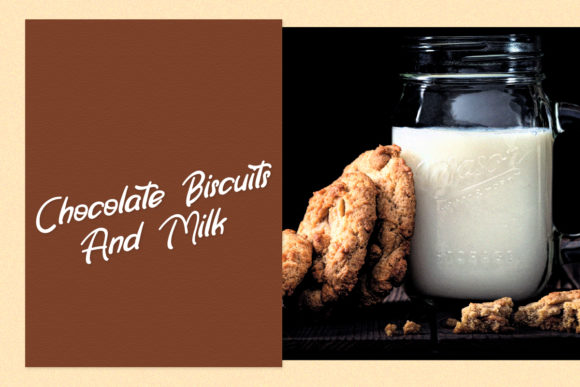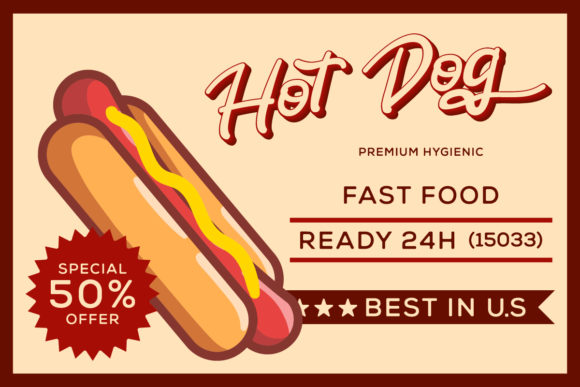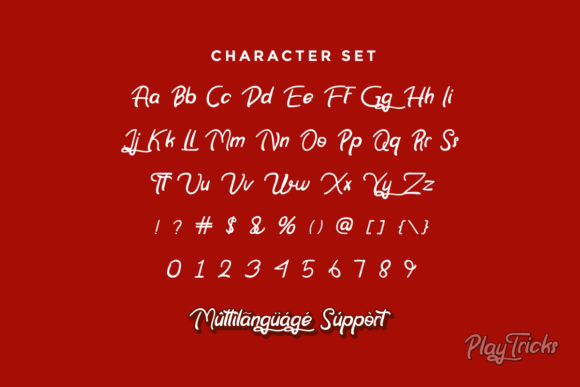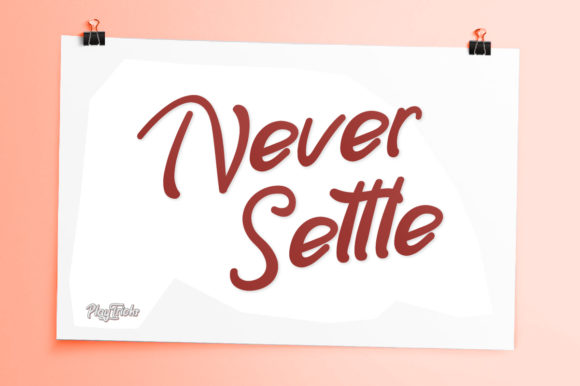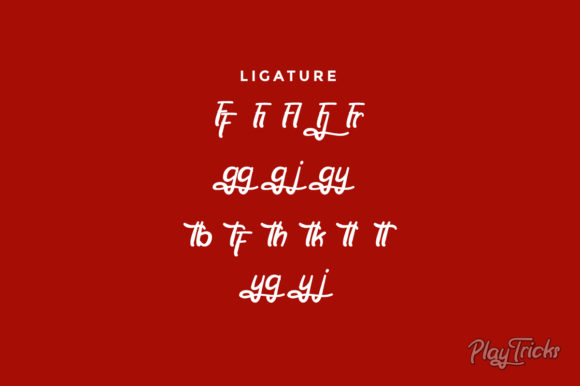
Introduction to Play Tricks Font
Do you remember the excitement of crafting a beautiful handmade card for a loved one, only to realize your words were falling flat due to a lackluster font? That’s when the magic of the right design resource can make all the difference. For designers and crafters alike, finding the perfect font to complement their creative project is a crucial step in bringing their vision to life.
One such gem is the Play Tricks Font, a high-quality, free download that’s sure to elevate your designs. With its friendly, handwritten style and simple design, this font is perfect for adding a personal touch to your projects. Whether you’re creating a wedding invitation or a birthday card, the Play Tricks Font is a versatile design resource that’s sure to impress.
But what truly sets the Play Tricks Font apart is its ability to be customized to fit your unique style. With a transparent background, you can easily layer your design elements to create a cohesive look that’s all your own. And with its free download status, you can experiment with this font to your heart’s content without breaking the bank.
Key Features of Play Tricks Font
- High-quality, unique font design ideal for creative projects.
- Unique, playful design characteristics, making it perfect for creative projects and design resources.
Honest Review: Play Tricks Font
I recently stumbled upon the Play Tricks Font, and I must say it’s been a great addition to my design resource library. The high quality of the font is immediately noticeable, making it perfect for creative projects that require a modern and playful touch.
The font is available for a free download, which is a major plus for designers on a budget. The transparent background feature is also a nice touch, allowing for seamless integration into various design elements.
- Modern and playful aesthetic that’s sure to grab attention
- The font may not be suitable for more formal or professional projects
- The number of font styles and weights may be limited compared to other fonts
Overall, I’m impressed with the Play Tricks Font, and I would definitely recommend it to designers looking for a high-quality, free design resource. With its modern aesthetic and transparent background feature, it’s perfect for creative projects that require a playful touch.
Tips for Getting the Most Out of Play Tricks Font
To get the most out of Play Tricks Font, try using it in combination with other design elements to create a unique and eye-catching look. Experiment with different font sizes, colors, and styles to find the perfect combination for your creative project.
Play Tricks Font is commonly used in graphic design, digital art, and creative writing projects. Its high-quality design and transparent background make it ideal for creating graphics with a clean and minimalist look. You can use it to create posters, flyers, business cards, and more.
Alternatives to Play Tricks Font